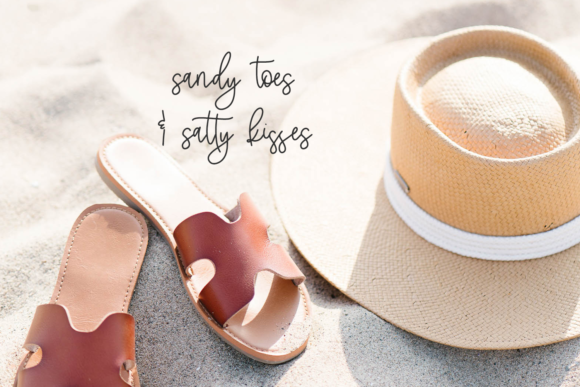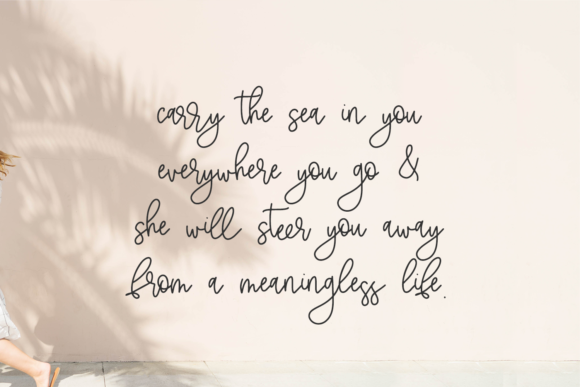
Offshore Script Font
db-ku.com - Script & Handwritten -- Offshore Script is an elegant hand-lettered calligraphy script. Offshore is a monoline font and features beautiful loopy ascenders & descenders, as well as a selection of alternates & ligatures.